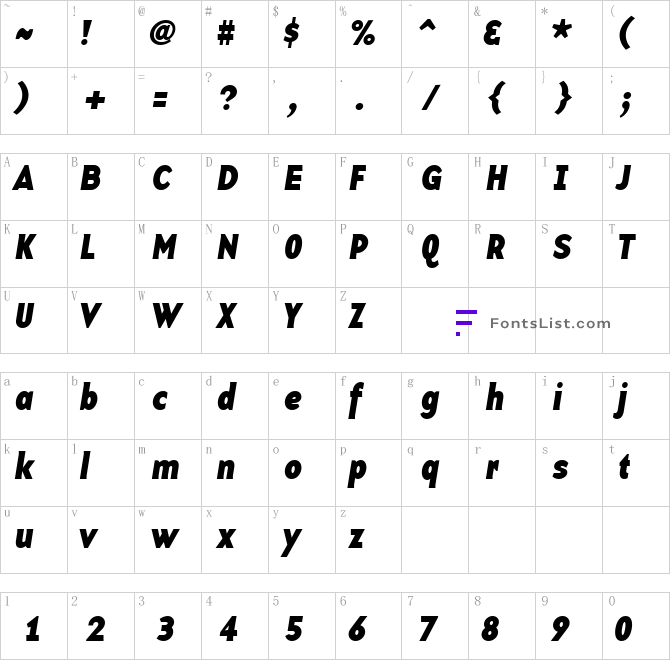
- Font Name:BaseTwelveSansBI
- Subfamily:Altsys Fontographer 3.5 BaseTwelveSansBI Regular
- Full Name:BaseTwelveSansBI Regular
BaseTwelveSansBI-Regular.ttf is a very beautiful artistic font, BaseTwelveSansBI-Regular.ttf is widely used in the design and printing of various books and pictures,BaseTwelveSansBI-Regular.ttf has a strong visual impact,BaseTwelveSansBI-Regular.ttf is a commonly used font in newspapers, magazines and books, and is used in posters, e-commerce Poster design, store design, logo design, font design and other fields.BaseTwelveSansBI-Regular.